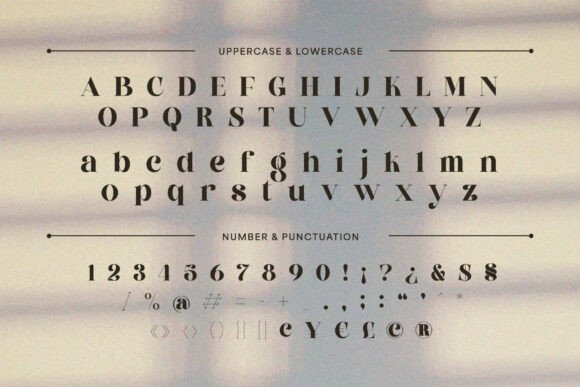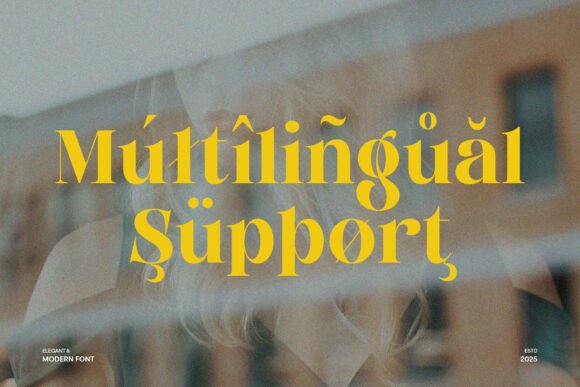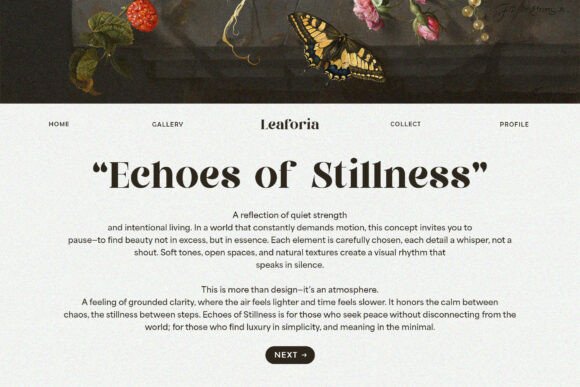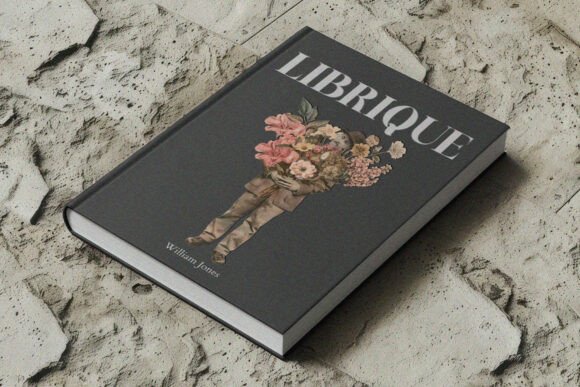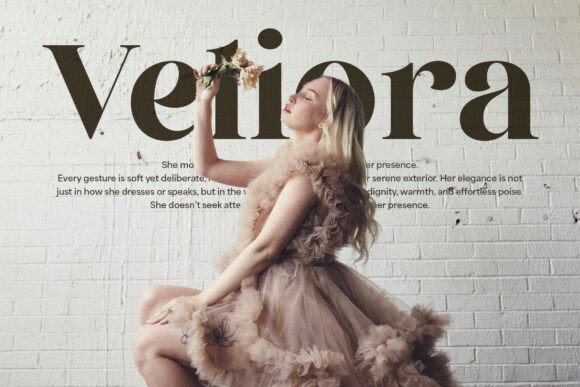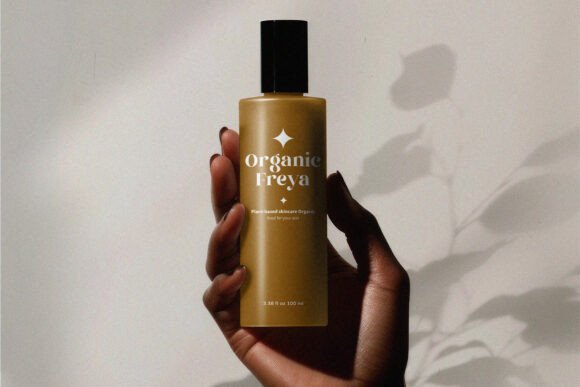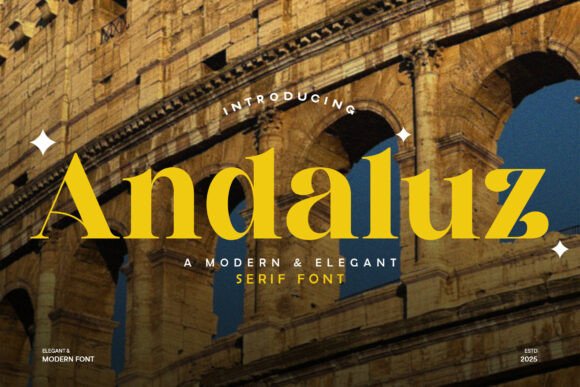
I still remember the countless hours I spent searching for the perfect font for a luxury branding project. My client wanted a classic, sophisticated look that exuded elegance and refinement. I scoured the internet, tried out dozens of fonts, but nothing seemed to fit the bill. That was until I stumbled upon Andaluz, a captivating modern and elegant serif font that beautifully merges classic sophistication with a contemporary aesthetic.
Andaluz: A Timeless Elegance
Andaluz is a stunning serif font that draws inspiration from timeless design. Its well-balanced proportions and distinctive serifs provide exceptional readability and a compelling visual appeal. This font exudes a sense of heritage yet feels undeniably current, making it a versatile choice for designers aiming for a sophisticated, historical, or classic modern look.
- ✨ Exceptional readability: Andaluz is a joy to read, even in smaller sizes.
- ✅ Elegant and refined: This font is perfect for luxury branding, editorial layouts, and high-end packaging.
- 💯 Versatile: Andaluz works beautifully in a variety of contexts, from architectural firms to cultural institutions.
- 🎨 Beautiful OpenType features: Andaluz offers a range of stylistic alternates, glyphs, and ligatures to enhance your typography.
- 🤔 Limited availability: Andaluz might not be as widely available as some other fonts, but it’s worth the search.
- ⚠️ Occasional kerning issues: As with any font, you might need to adjust kerning in certain situations.
The Designer Inspiration Behind Andaluz
Andaluz was designed with the intention of creating a font that embodies the perfect blend of classic sophistication and modern elegance. Inspired by the works of renowned typographers, Andaluz’s creator aimed to craft a font that would exude refinement and luxury. With its beautiful OpenType features and exceptional readability, Andaluz is a testament to the power of thoughtful design.
Q: What is Andaluz font best suited for?
A: Andaluz is perfect for luxury branding, editorial layouts, high-end packaging, architectural firms, cultural institutions, and projects seeking a refined and authoritative presence.
Q: Is Andaluz a versatile font?
A: Yes, Andaluz is a versatile font that works beautifully in a variety of contexts, from digital designs to print materials.
Q: Does Andaluz support OpenType features?
A: Yes, Andaluz offers a range of OpenType features, including stylistic alternates, glyphs, and ligatures, to enhance your typography.